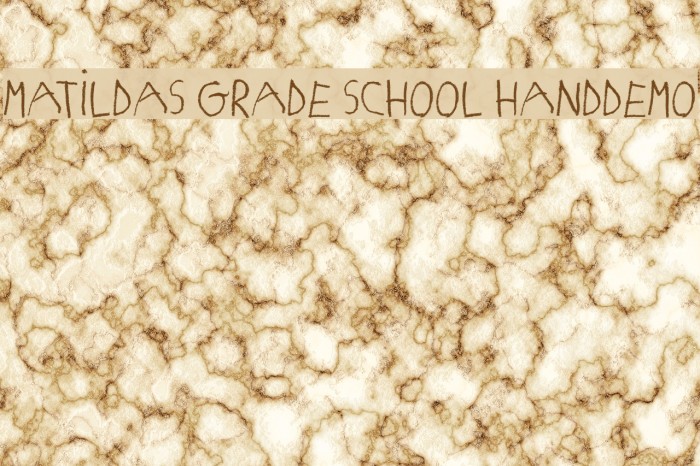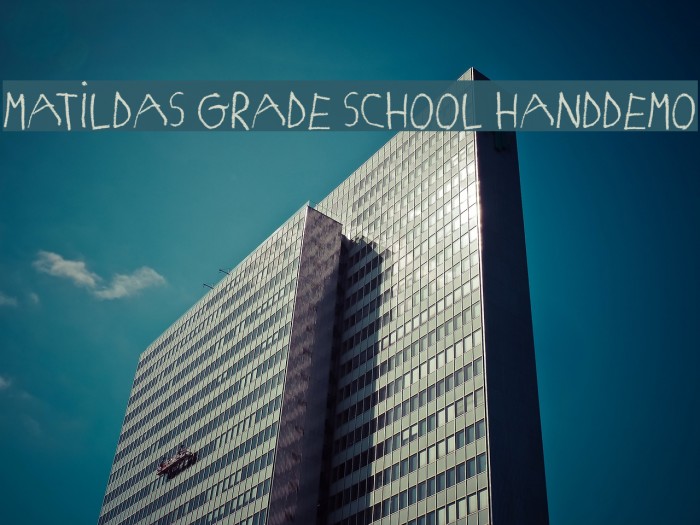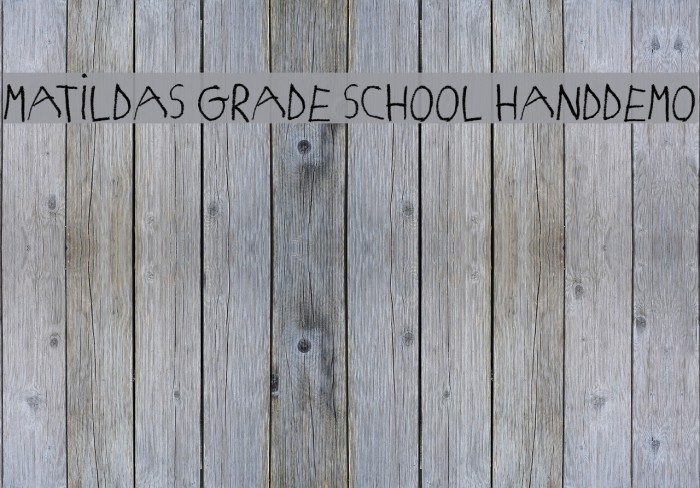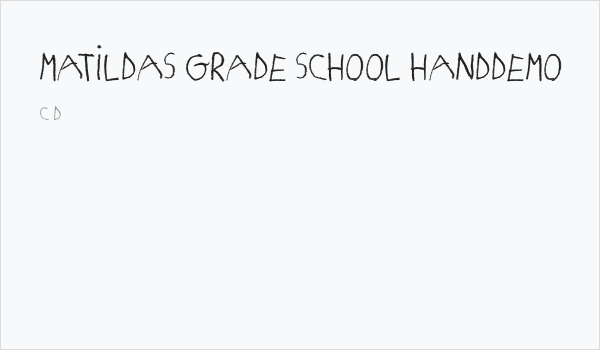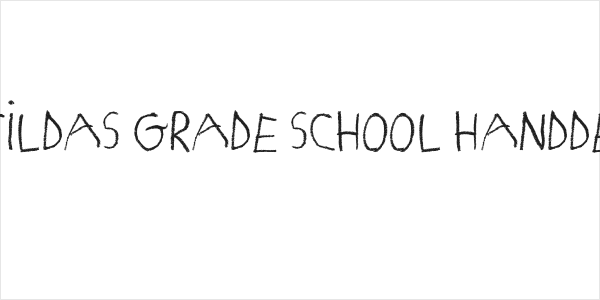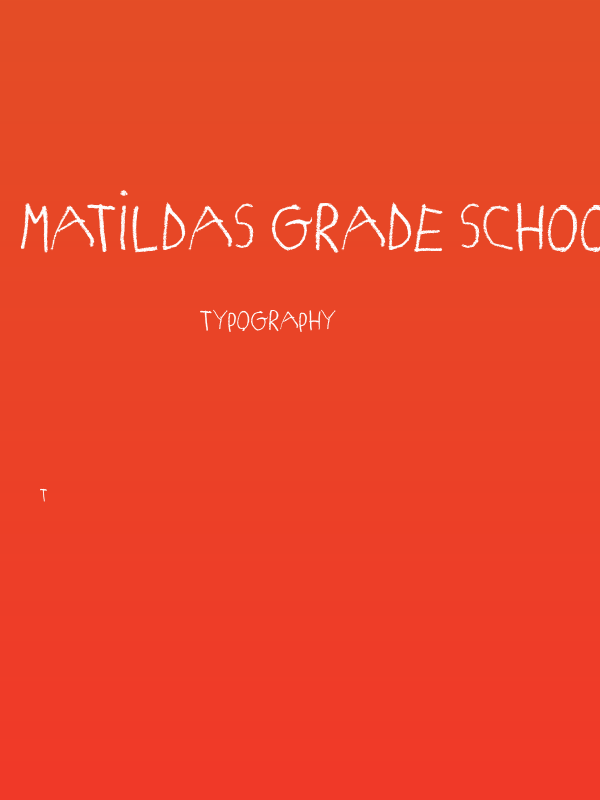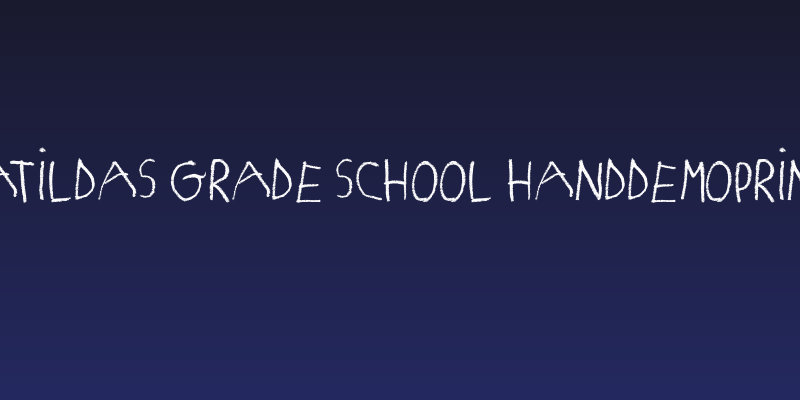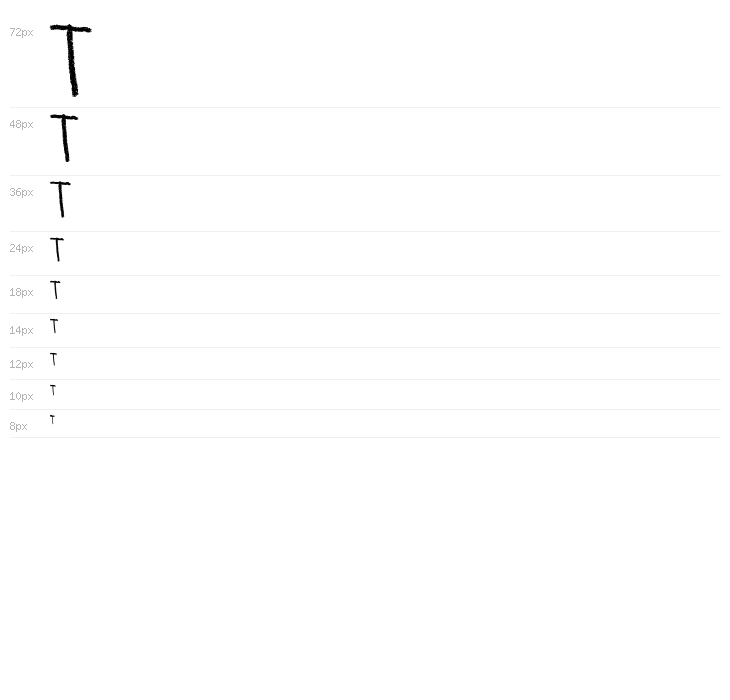
MATILDAS GRADE SCHOOL HAND_DEMO_print Font
MATILDAS GRADE SCHOOL HAND_DEMO_print Description
This font features a playful and informal handwritten style, reminiscent of a child's handwriting. The letters are unevenly shaped, with a slightly rough texture that adds to its charm and authenticity. The strokes are bold and somewhat irregular, giving it a lively and spontaneous feel. The overall appearance is casual and approachable, making it suitable for projects that require a personal touch. The font's unique character is evident in its quirky letterforms, which vary in size and angle, adding to its whimsical nature.
| Use Case | Headlines, Informal text, Children's materials |
| Proposed Projects | Ideal for children's books, educational materials, playful branding, and informal invitations. |